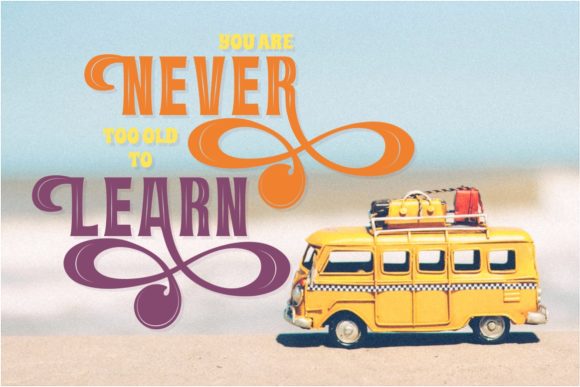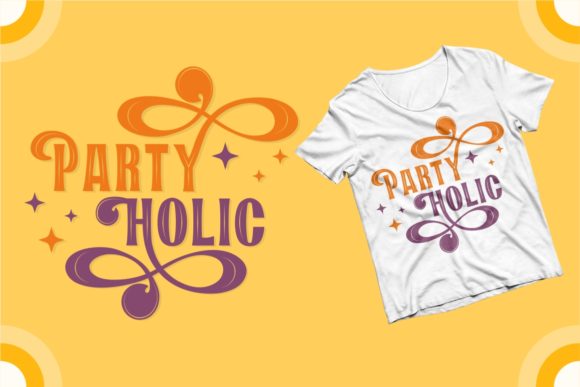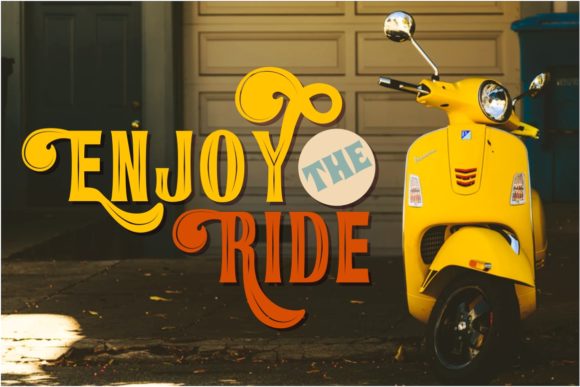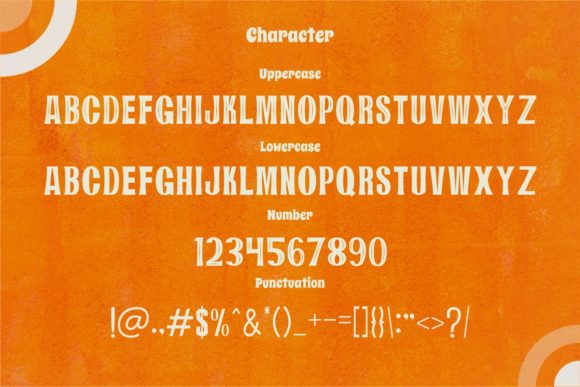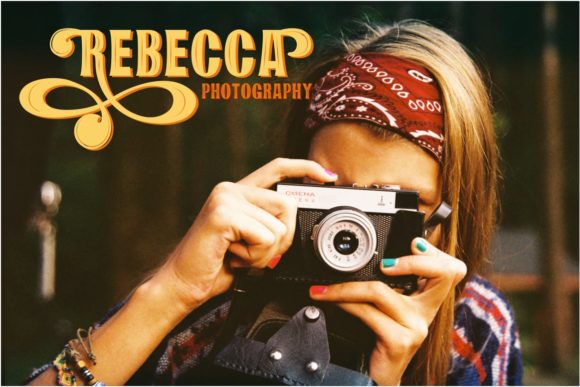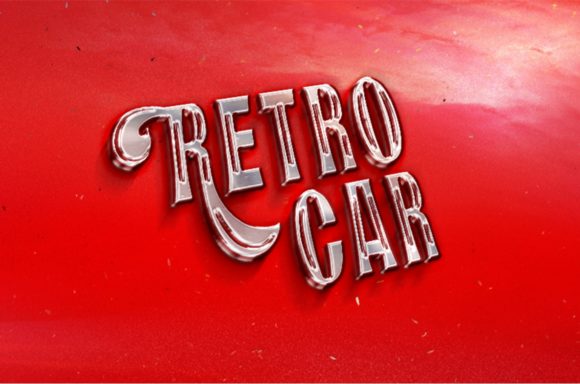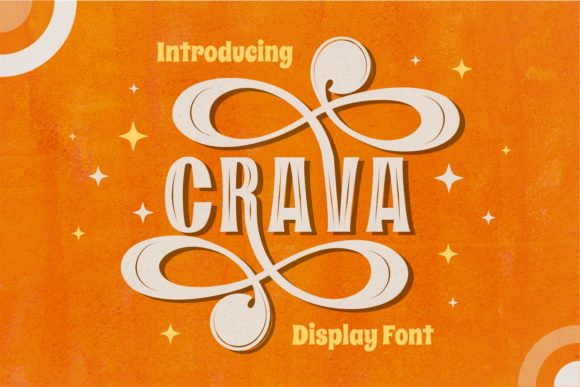
Crava Font: A Timeless Vintage Display Font with a Modern Twist
Are you looking for a font that exudes elegance, sophistication, and a touch of modernity? Look no further than Crava Font, a great vintage display font with a modern twist that is sure to inspire your next design project. In this article, we’ll dive into the world of Crava Font, exploring its unique features, and what makes it a must-have for designers and crafters alike.
The Charm of Vintage Fonts
Vintage fonts have always been a staple in the world of design. They evoke a sense of nostalgia and classic charm that can add a touch of warmth and personality to any project. However, vintage fonts can also be limiting, often feeling outdated or overused. That’s where Crava Font comes in – a beautifully crafted vintage display font that combines the best of both worlds: timeless elegance and modern flair.
Introducing Crava Font
Crava Font is a stunning vintage display font that boasts bold swashes, intricate details, and a unique character that sets it apart from other fonts in its class. With its modern twist, Crava Font is perfect for designers and crafters looking to add a touch of sophistication and glamour to their projects. Whether you’re working on a branding campaign, a wedding invitation, or a packaging design, Crava Font is sure to make a statement.
Key Features of Crava Font
- Bold Swashes: Crava Font features bold, sweeping swashes that add a touch of drama and flair to any design.
- Intricate Details: The font is adorned with intricate details, including ornate flourishes and elegant lines.
- Modern Twist: Crava Font combines vintage charm with a modern twist, making it perfect for contemporary designs.
- Versatile: The font is versatile and can be used for a variety of projects, from branding and advertising to packaging and invitations.
Why Designers and Crafters Love Crava Font
So, why do designers and crafters love Crava Font? For starters, the font is incredibly easy to use, with a simple and intuitive design that makes it easy to pair with other fonts and design elements. Additionally, Crava Font is highly versatile, making it perfect for a wide range of projects and applications. The font is also highly customizable, allowing designers and crafters to add their own unique touch and personality to their work.
Inspiration with Crava Font
One of the best things about Crava Font is the inspiration it provides. With its bold swashes and intricate details, Crava Font is sure to spark your creativity and inspire your next design project. Here are a few ideas to get you started:
- Wedding Invitations: Use Crava Font to create stunning wedding invitations that exude elegance and sophistication.
- Branding Campaigns: Pair Crava Font with bold colors and modern design elements to create a branding campaign that truly stands out.
- Packaging Design: Use Crava Font to add a touch of luxury and glamour to your packaging design.
In conclusion, Crava Font is a must-have for designers and crafters looking for a vintage display font with a modern twist. With its bold swashes, intricate details, and versatile design, Crava Font is perfect for a wide range of projects and applications. Whether you’re looking to add a touch of elegance and sophistication to your work or simply want to try something new and exciting, Crava Font is sure to inspire and delight.